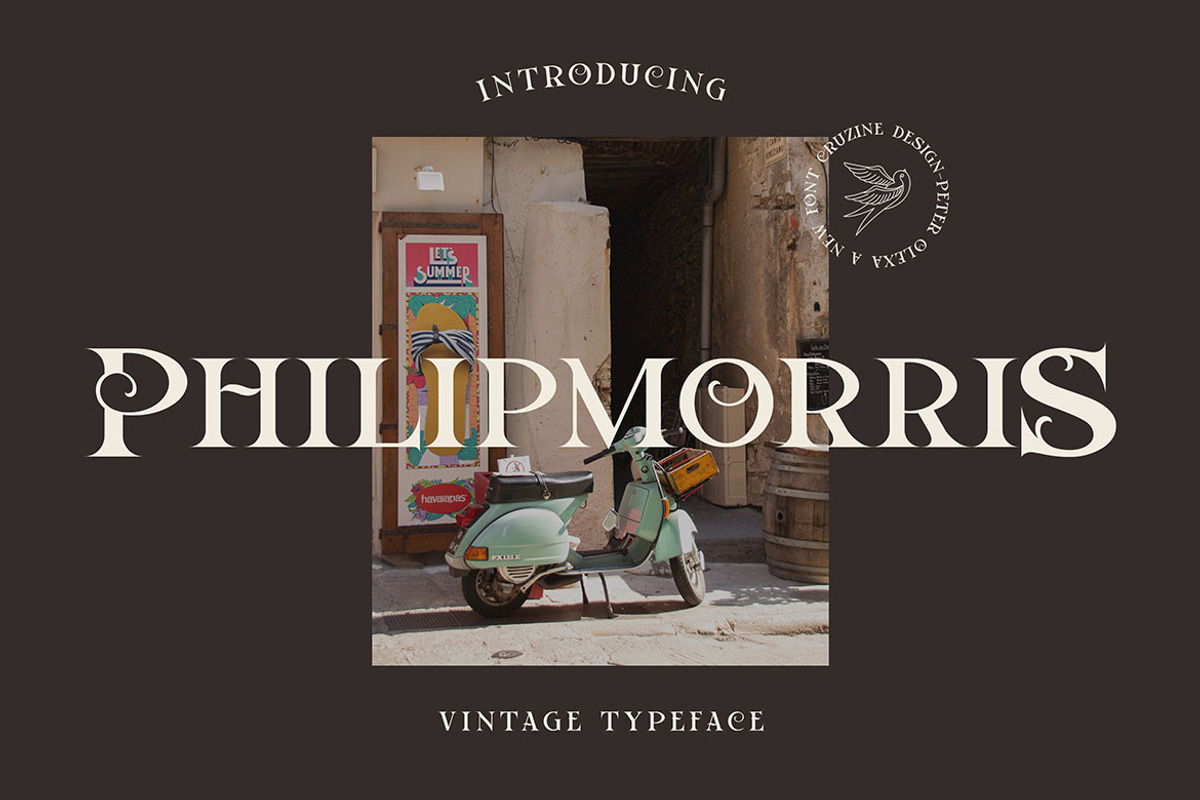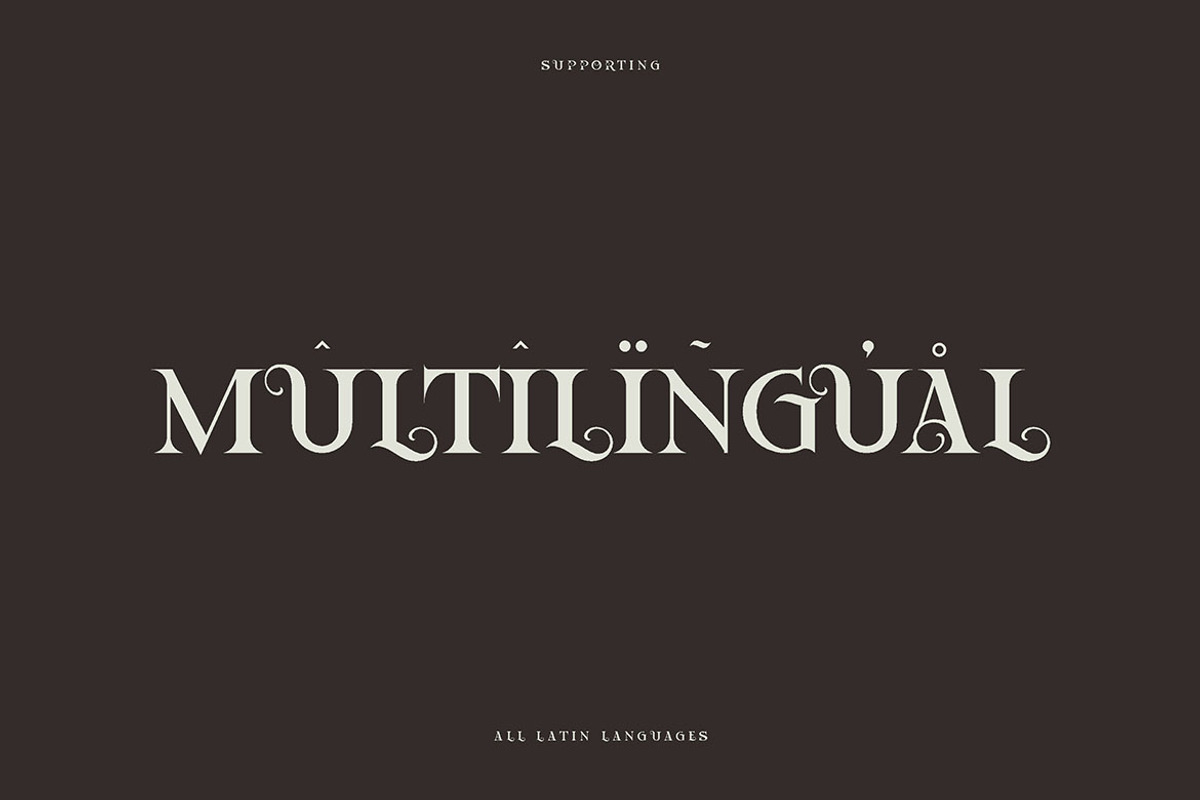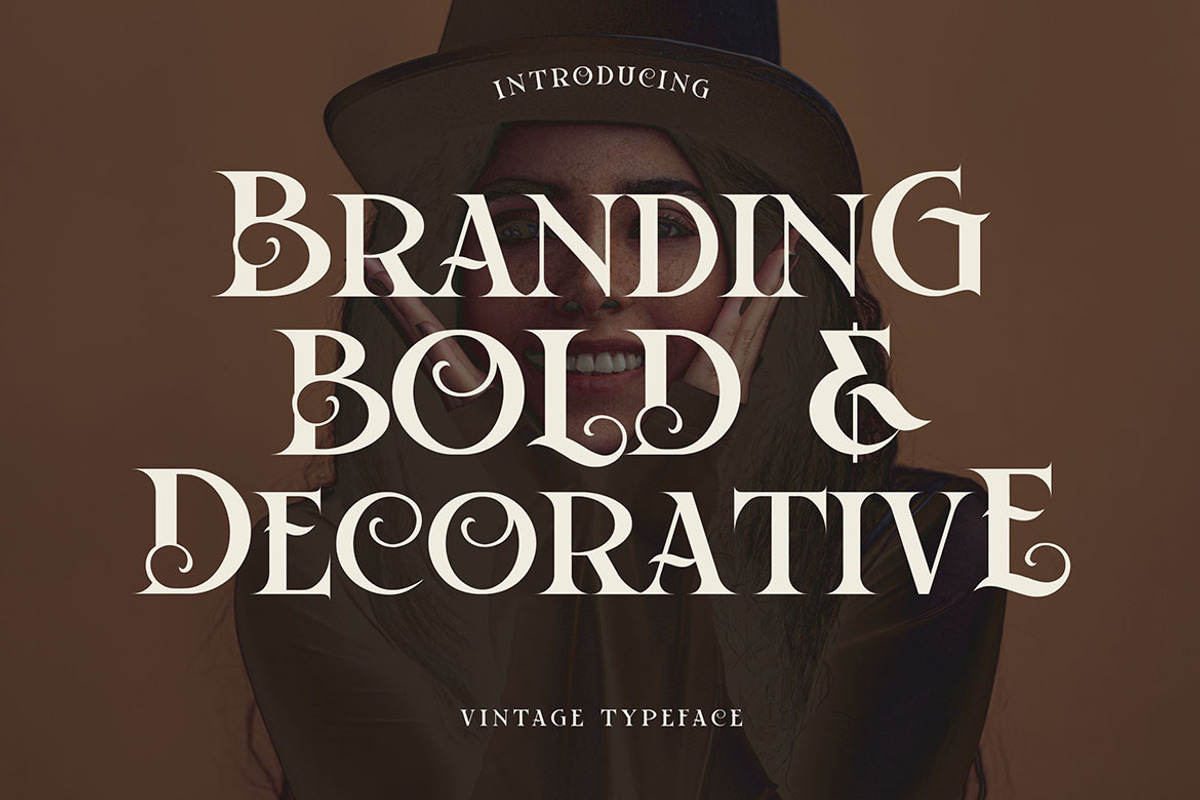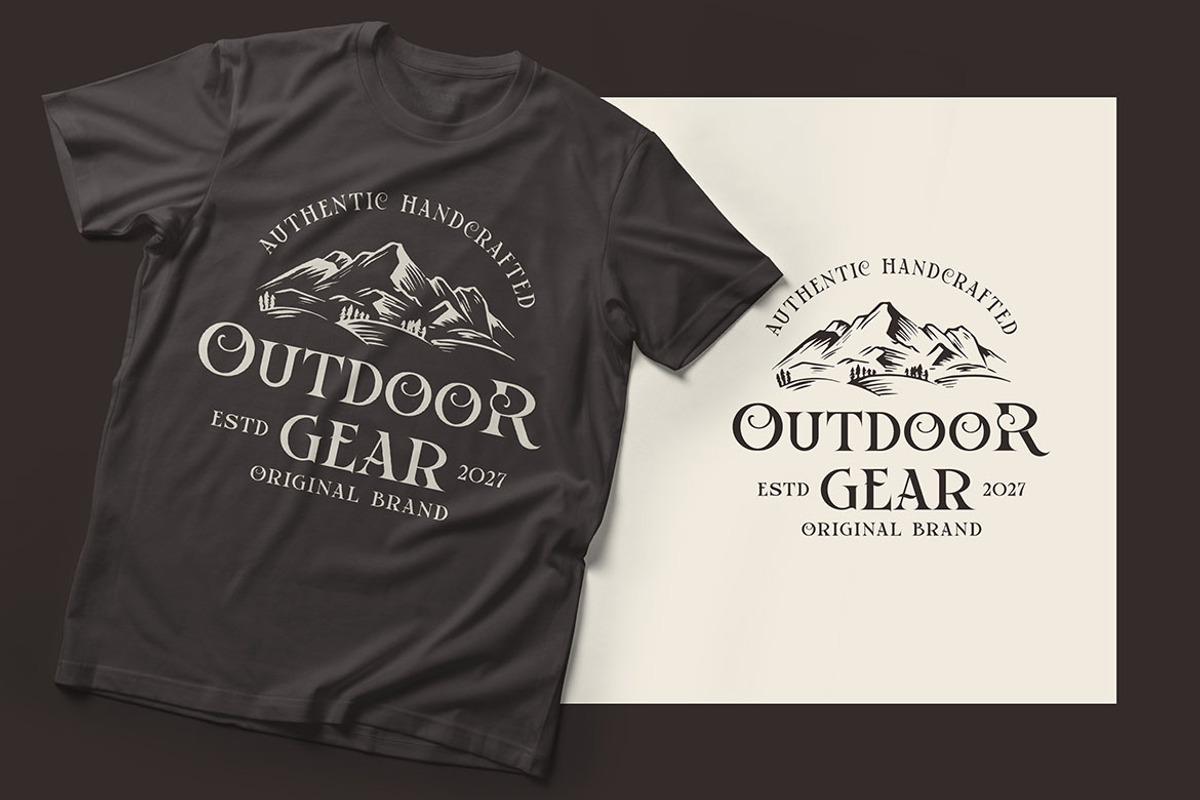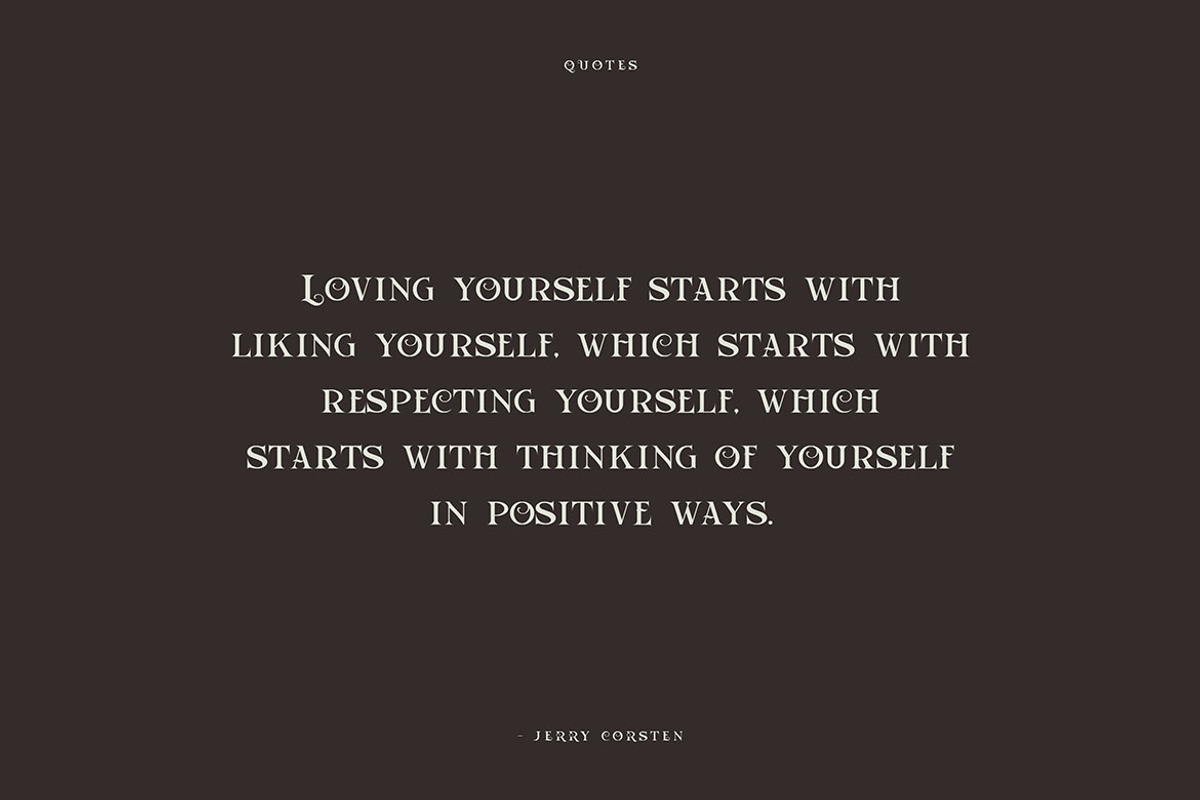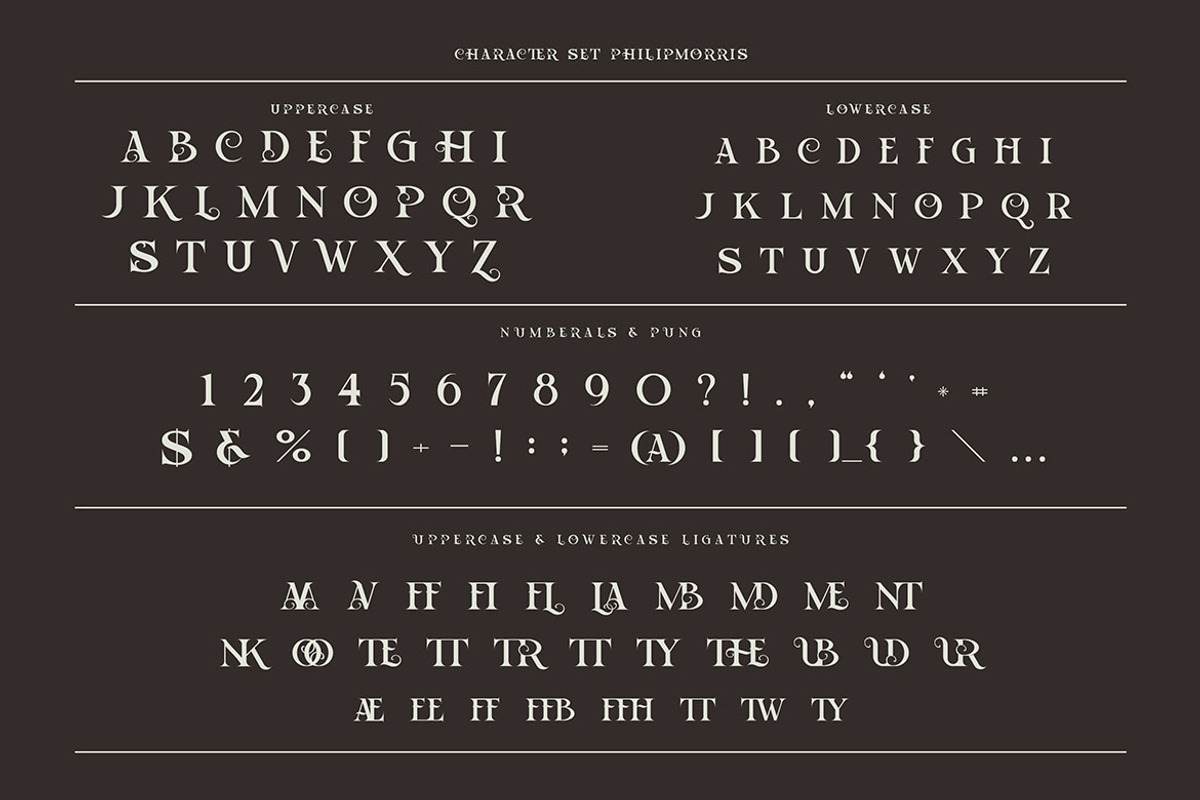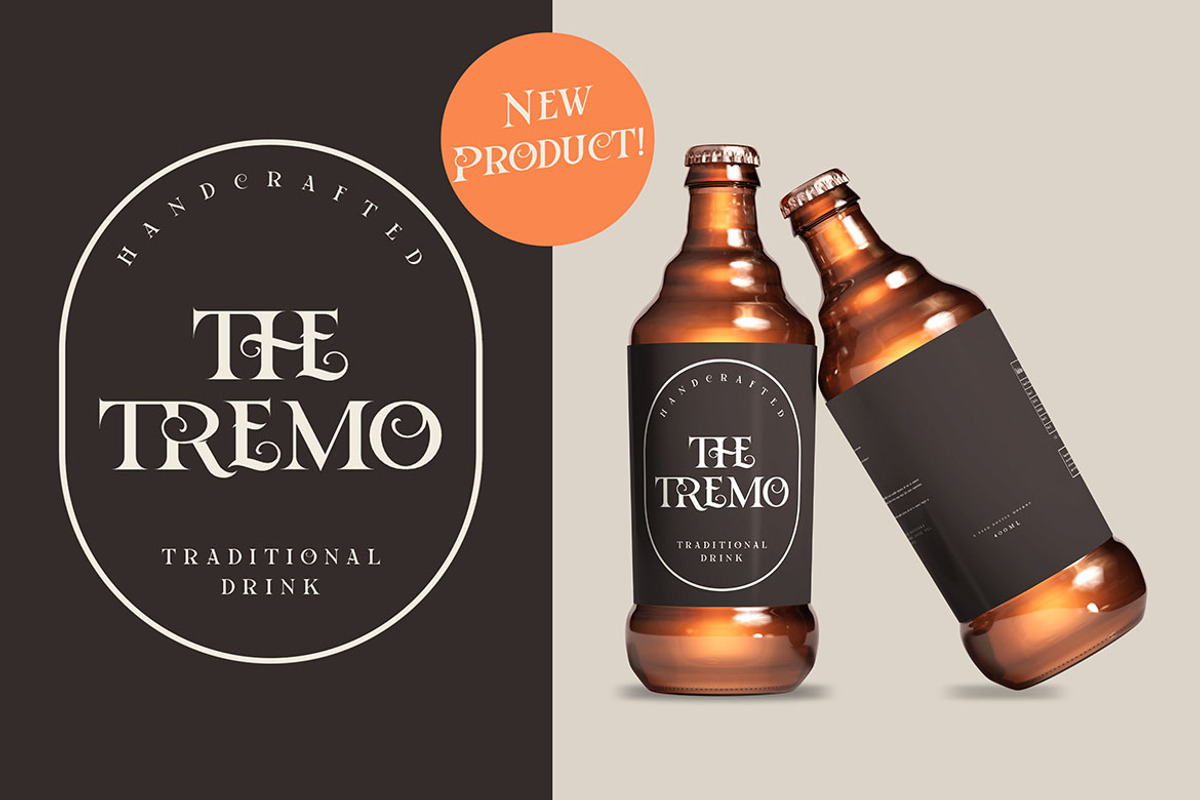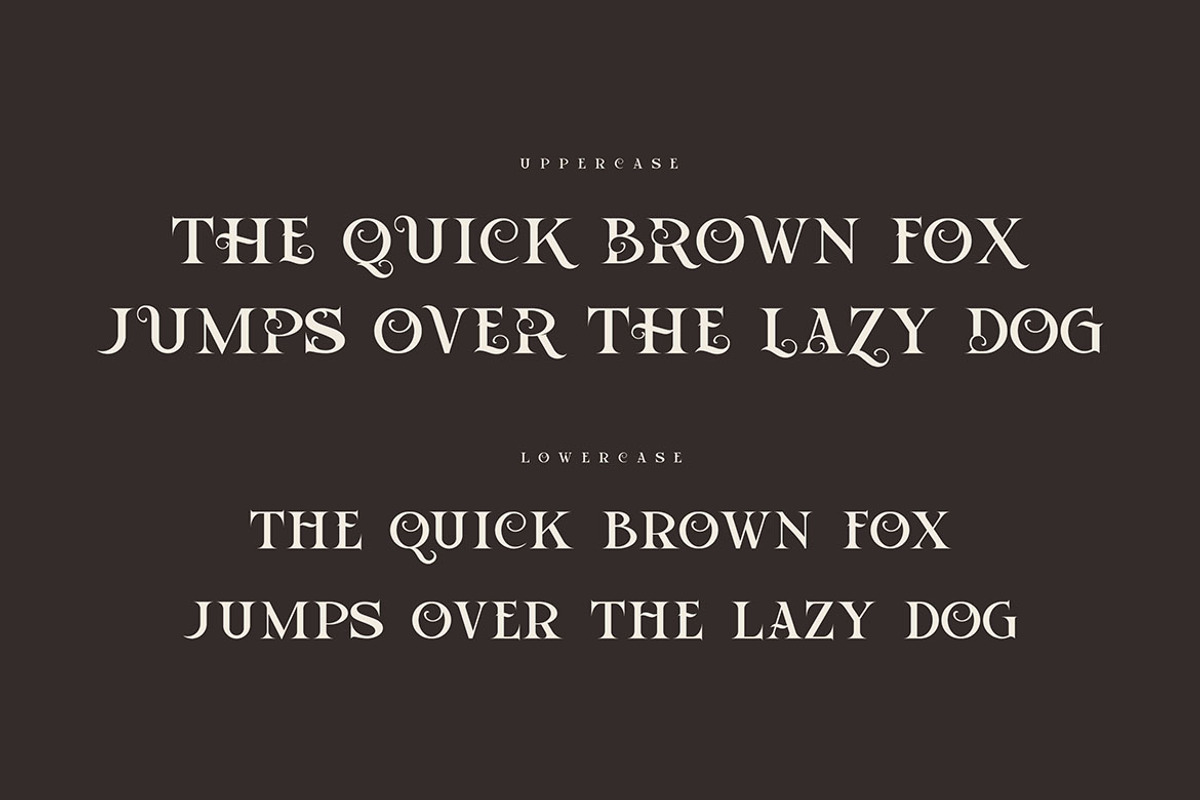
Philipmorris Bold Retro Font
Unique retro, decorative & bold serif font. Comes with multilingual support & ligatures - great for your new logo or branding project.
- Great for retro or vintage style branding projects